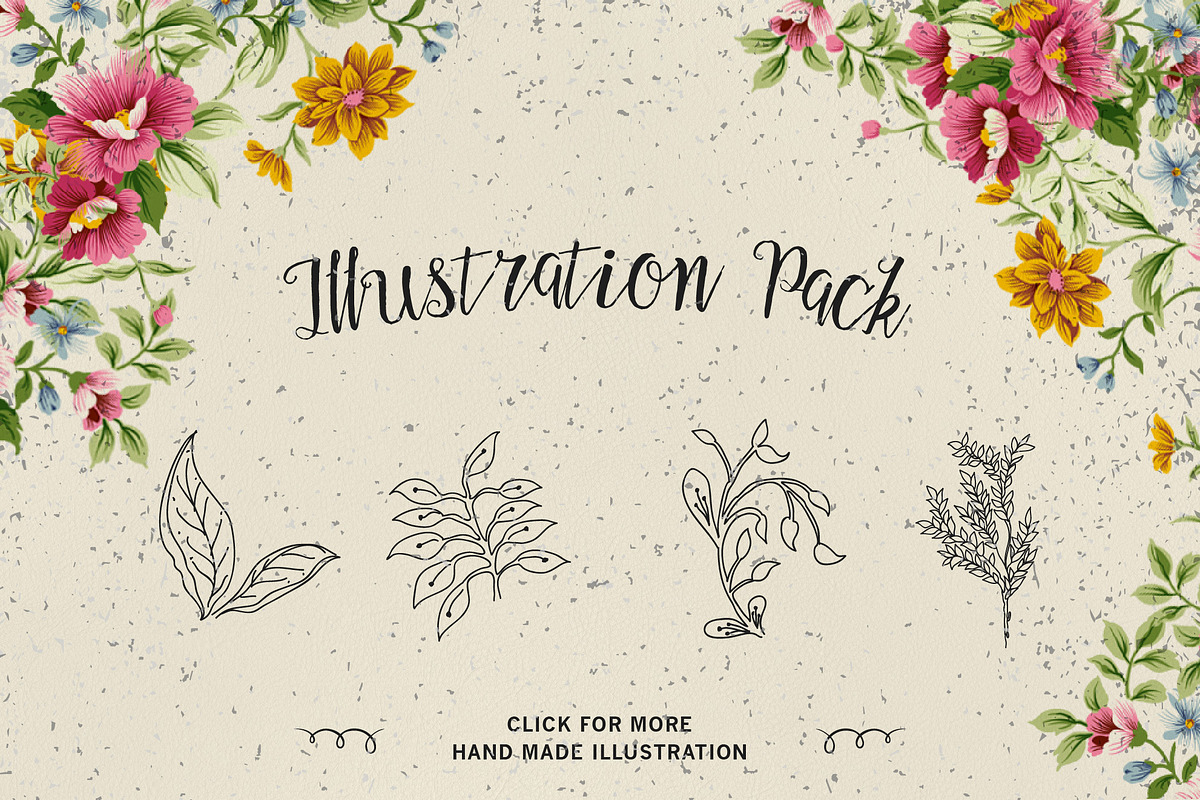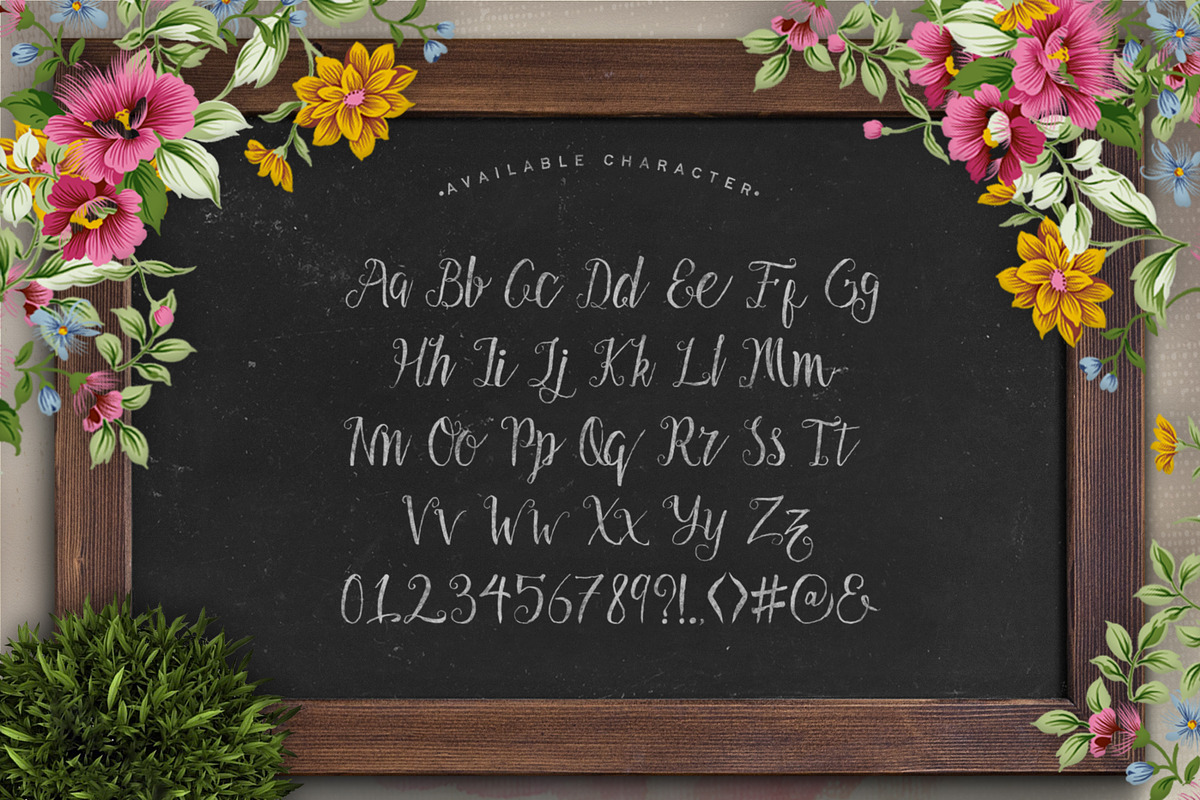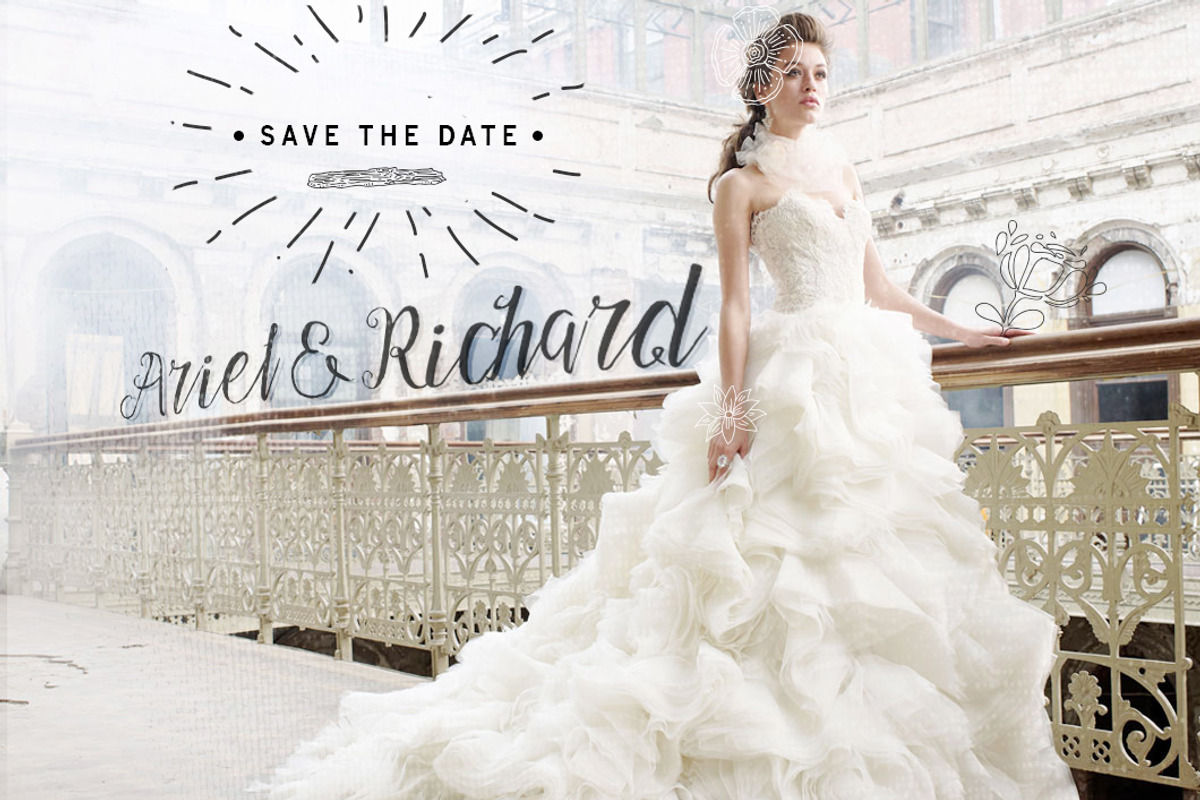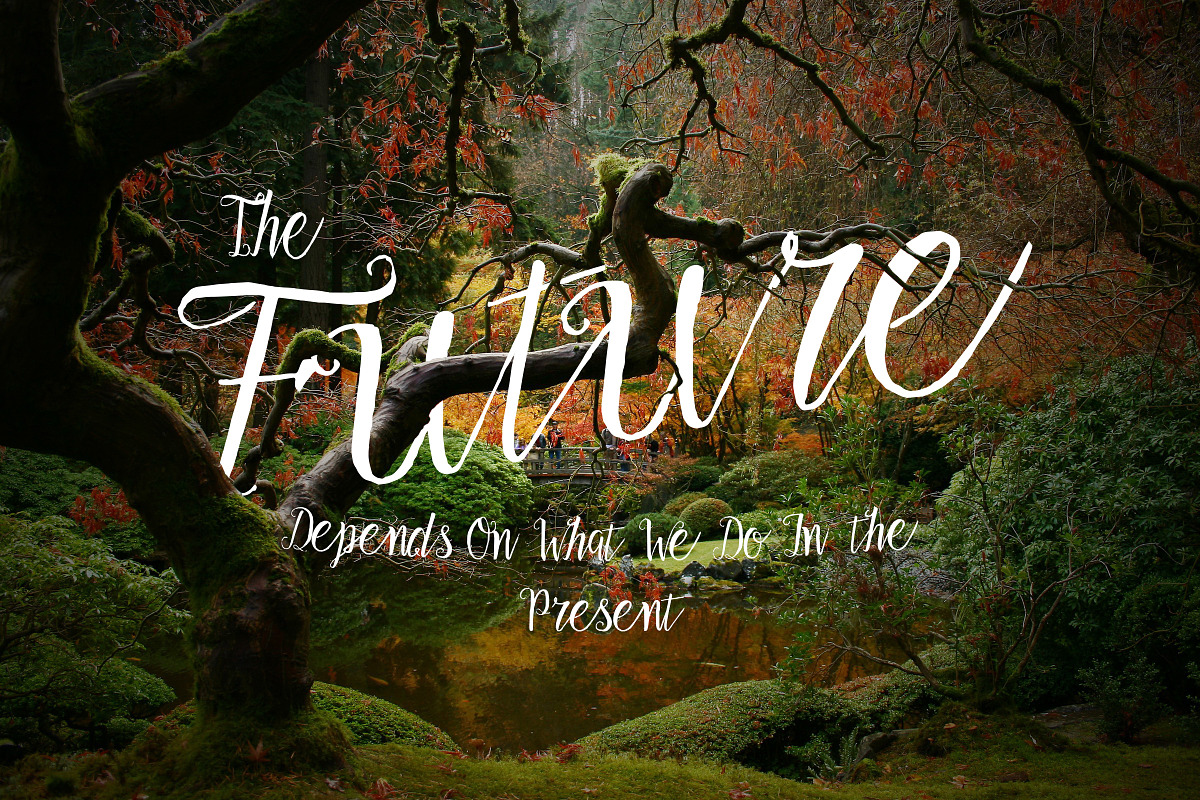
Aldas Typeface & Illustration Pack
Aldas Typeface & Illustration Pack by Davendra Typeface is a font selected for branding, posters, packaging, typography.
- With uneven characters that will awake your creativity and save your valuable tons of time to make awesome work.
Why Aldas Typeface & Illustration Pack is worth a look
Aldas Typeface & Illustration Pack by Davendra Typeface fits naturally into Branding, posters, packaging, typography.